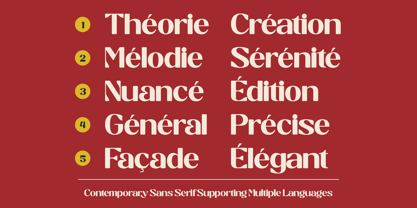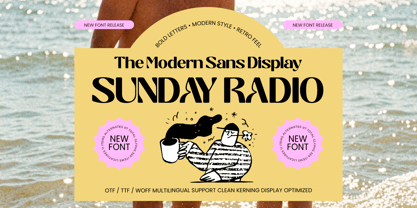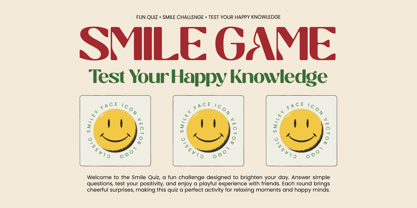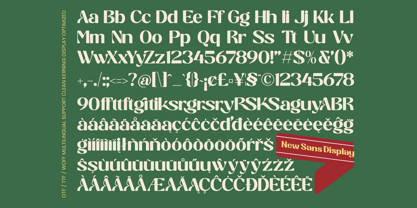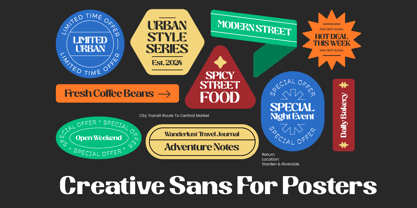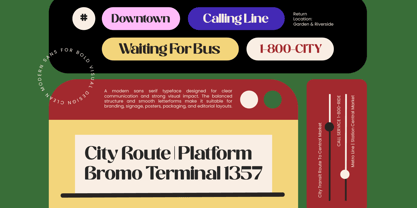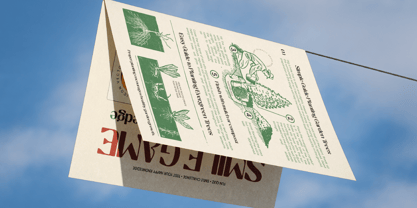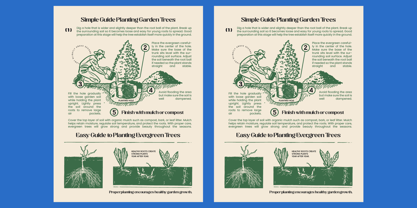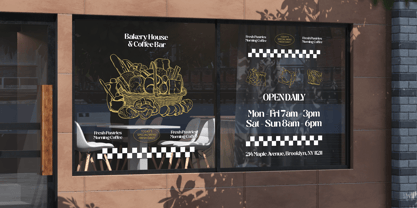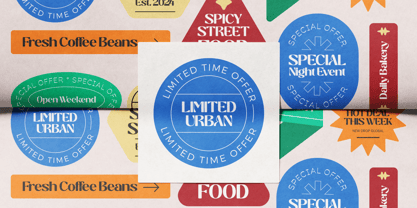
Sunday Radio
by Sixtype Foundry
The Sunday Radio Font Family and published by Sixtype Foundry. Sunday Radio contains 2 styles and family package options. More about this family
Sunday Radio is a bold display serif that seamlessly blends contemporary sophistication with a nostalgic retro spirit. Featuring high-contrast strokes, distinctive curved terminals, and playful character details, it creates a memorable visual identity that stands out across various applications, including branding, packaging, editorial design, posters, signage, café menus, social media graphics, and lifestyle campaigns. The letterforms strike a perfect balance between elegance and personality, delivering strong headlines infused with a warm vintage-inspired atmosphere while maintaining a clean modern presence. Designed for eye-catching typography, Sunday Radio is perfect for creative projects that require stylish impact, expressive branding, and timeless visual appeal. With its versatile weights and OpenType features, this font family is an excellent choice for any design that aims to captivate and engage audiences.